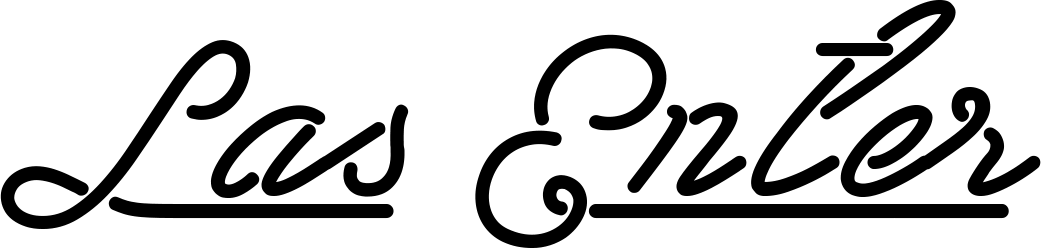
Las Enter Font
Las Enter is an awesome font from the marquee font category. This font has a friendly and informal approach which are great points to make this font a perfect choice for logos, neon signs, etc. This 80s neon font doesn’t…
Las Enter is an awesome font from the marquee font category. This font has a friendly and informal approach which are great points to make this font a perfect choice for logos, neon signs, etc.
This 80s neon font doesn’t come with all the characters but you get the lowercase and uppercase of the alphabet and more. And also it might not be easy to read.